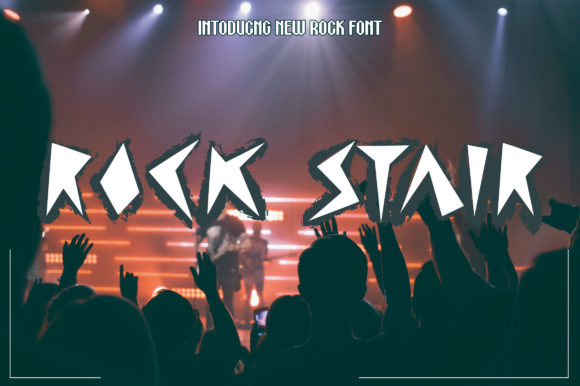
**Welcome to the World of Rock Stair, Where Creativity Takes Center Stage!**
Step into the realm of Rock Stair, a captivating display font that will set your designs ablaze with its unmatched uniqueness. Crafted with meticulous attention to detail, this font is a masterpiece that will transform your creative visions into breathtaking realities.
**Unlock Your Inner Rock Star**
With Rock Stair, your designs will command attention like a thunderclap. Its bold and edgy character empowers you to create logos that roar, headlines that scream, and posters that ignite sparks of inspiration. Let the jagged edges and dynamic flow of this font ignite your imagination and unleash your inner rock star.
**A Canvas for Your Wildest Dreams**
Rock Stair is the ultimate playground for artistic expression. Its versatility knows no bounds, inviting you to paint your ideas across a vast canvas of possibilities. Whether you're creating head-turning posters, eye-catching album covers, or mesmerizing social media graphics, Rock Stair will elevate your designs to new heights.
**Forge an Unforgettable Legacy**
Leave an indelible mark on the world with the power of Rock Stair. This font is more than just a tool; it's a weapon of creativity that will empower you to forge an unforgettable legacy in the annals of design.
**Embrace the Rockstar Attitude**
Rock Stair is not just a font; it's a lifestyle. Embrace the rockstar attitude and let your creativity run wild. Dare to be different, push boundaries, and create designs that resonate with the raw energy of rock 'n' roll.
**Join the Creative Revolution**
Don't settle for ordinary fonts. Join the creative revolution and harness the power of Rock Stair. Let its jagged edges ignite your imagination and propel your designs to the stratosphere of brilliance.
**Step into the Spotlight**
The stage is set, the lights are blazing, and it's time for your designs to take center stage. Rock Stair is the ultimate spotlight, illuminating your creations and captivating your audience with its undeniable charisma.
**Own the Night**
With Rock Stair, the night belongs to you. Its bold and edgy character will make your designs shine brighter than the stars, leaving an unforgettable impression on the world.